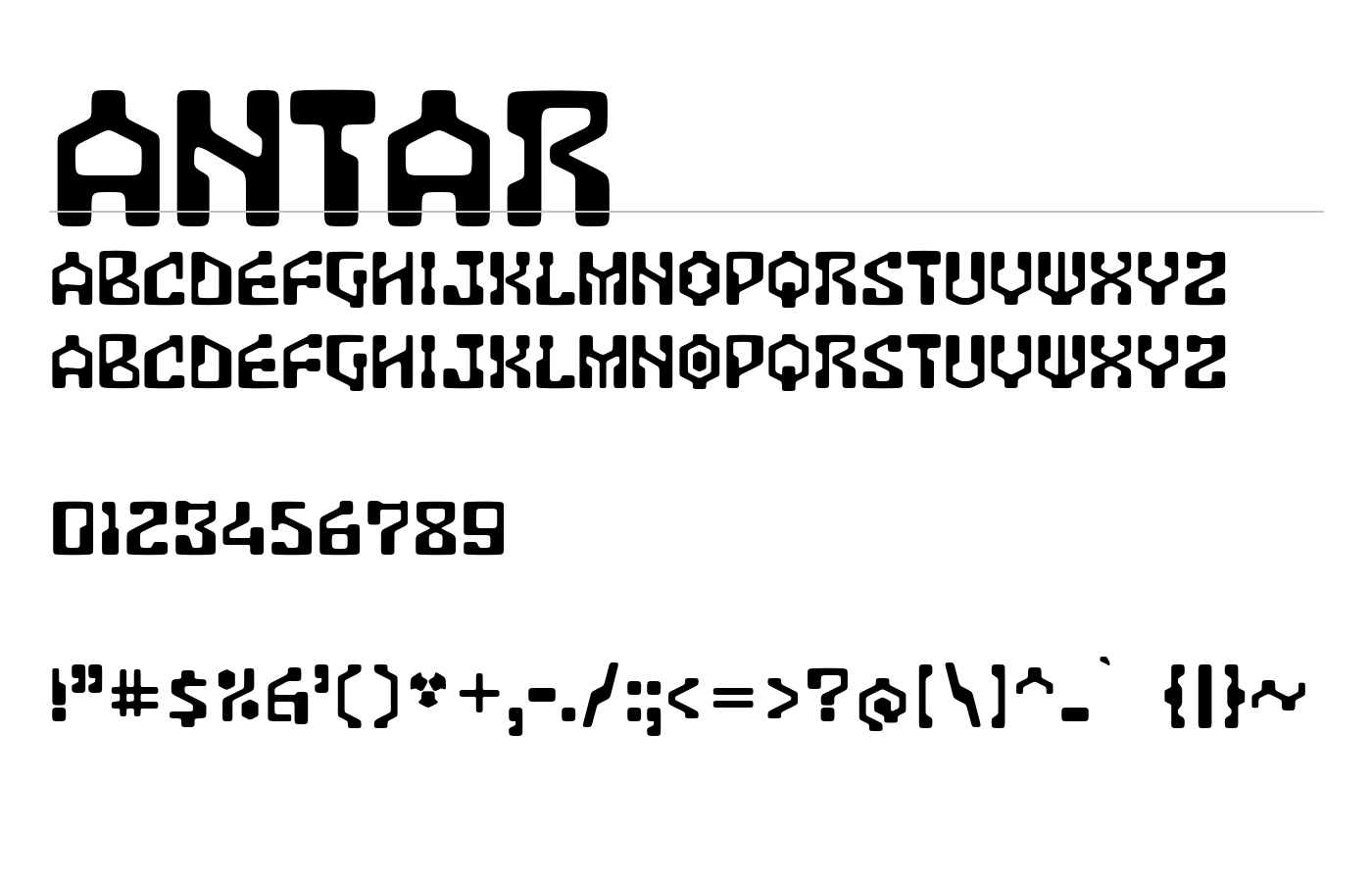
Antar is a bold, geometric sans serif font with a distinct sci-fi and futuristic vibe, featuring uniform stroke widths and blocky letterforms with rounded corners. Its unique, almost robotic shapes and tightly spaced characters make it ideal for technology-focused branding, posters, and headlines where a strong, modern statement is desired. This font works best in designs that aim to capture attention with a cutting-edge and slightly playful personality.
Antar Font
| Font family | Antar Font |
| Designer | Andrew Young |